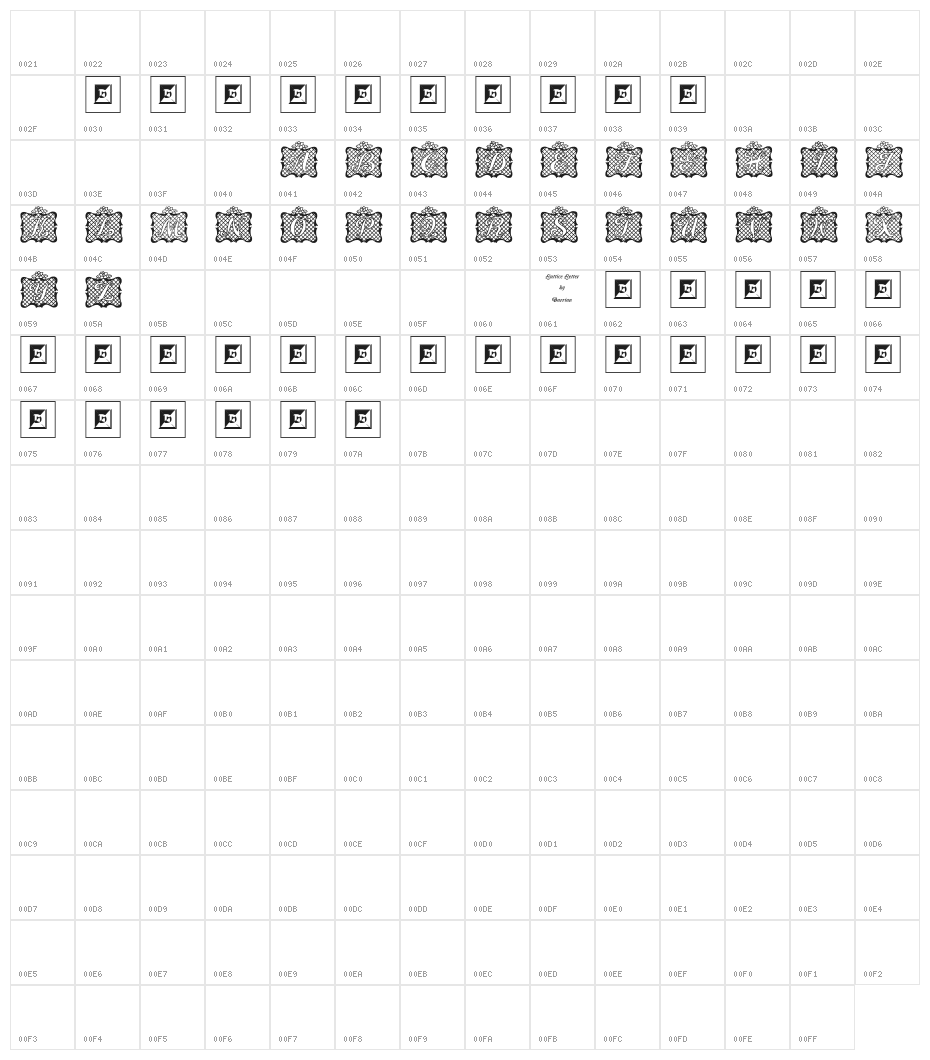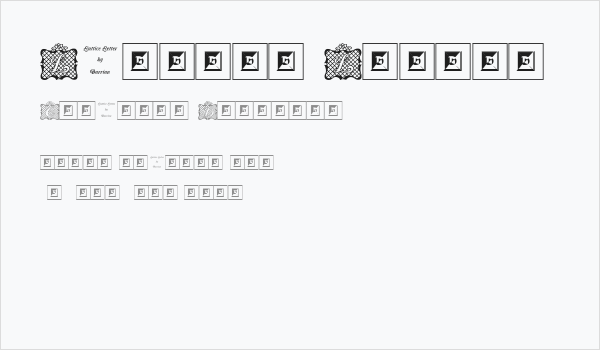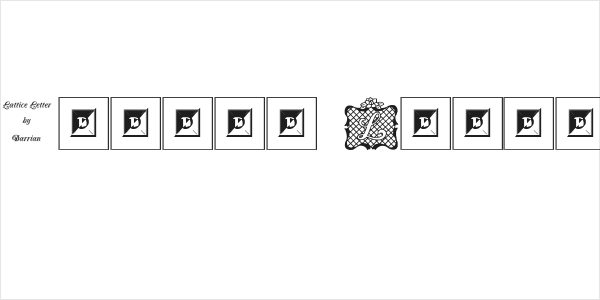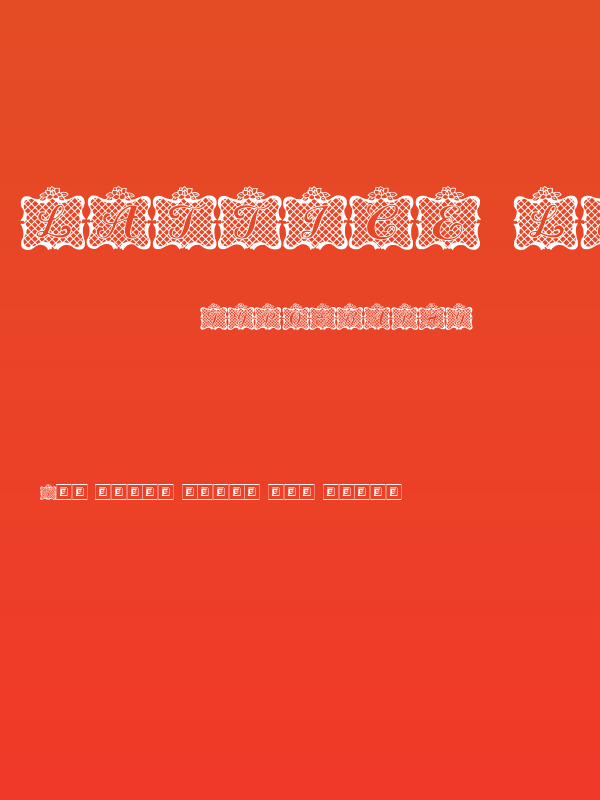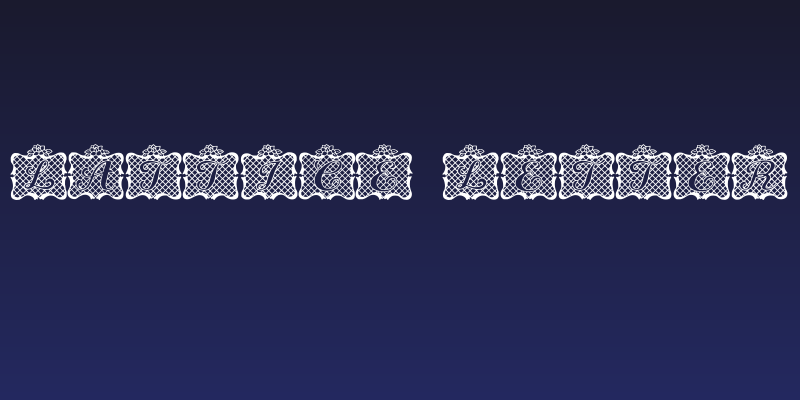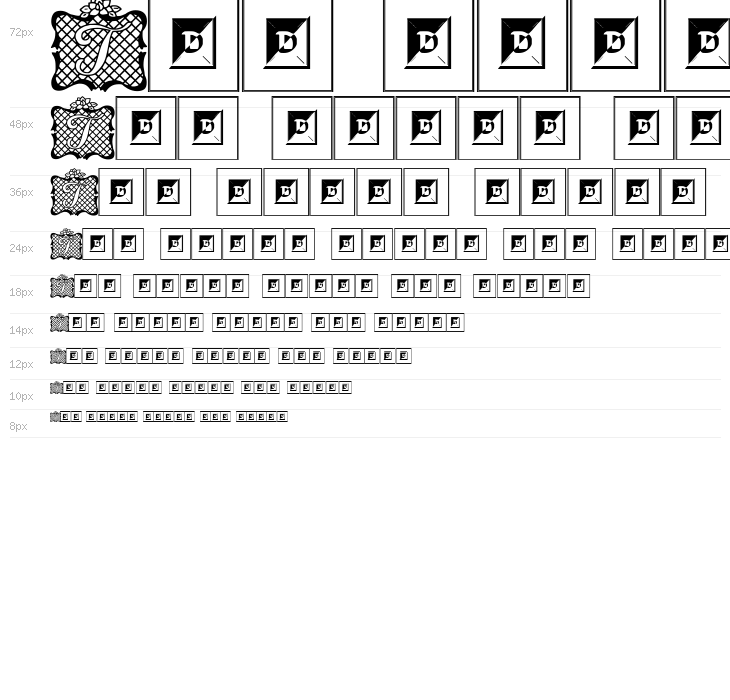
Lattice Letter Font
Lattice Letter Description
This font features an intricate lattice design, where each character is enclosed within a decorative, ornate frame. The letters are stylized with a vintage flair, reminiscent of old-world craftsmanship. The lattice pattern within each character adds a layer of complexity and elegance, making it stand out as a decorative typeface. The overall appearance is bold and eye-catching, suitable for projects that require a touch of sophistication and historical charm. The font's unique style makes it ideal for special occasions or themed designs that aim to evoke a sense of nostalgia and grandeur.
| Overall Style | Vintage, Decorative |
| Proposed Projects | Ideal for wedding invitations, vintage-themed posters, book covers, and decorative signage. |